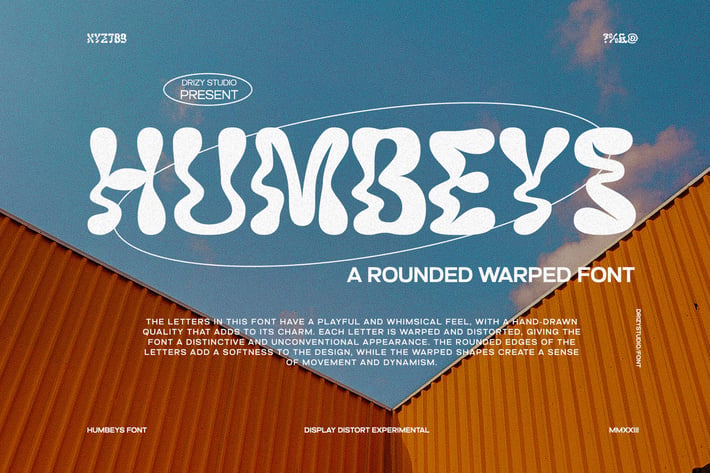
Humbeys - Rounded Warped Font
Humbeys is an Experimental Rounded Warped Font from Drizy Studio. Offering the unique experimental style you need for your projects.